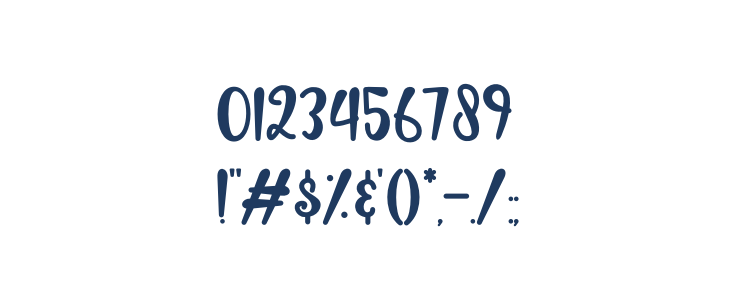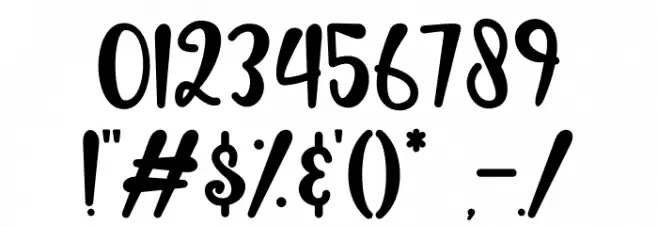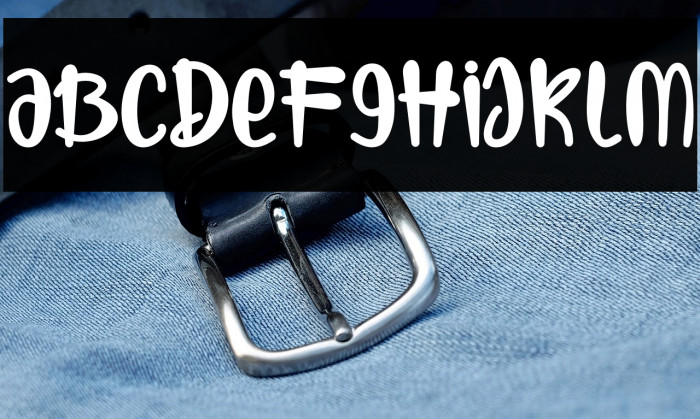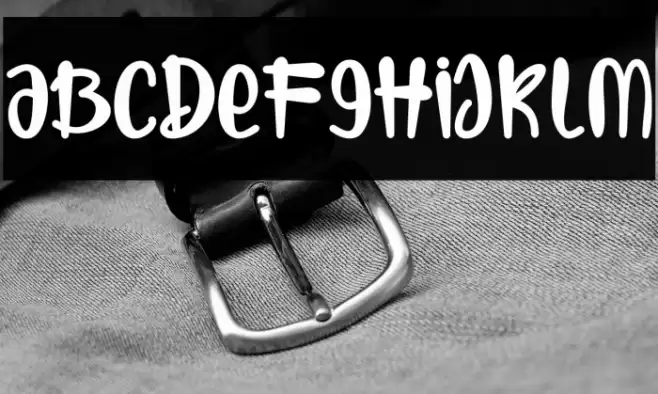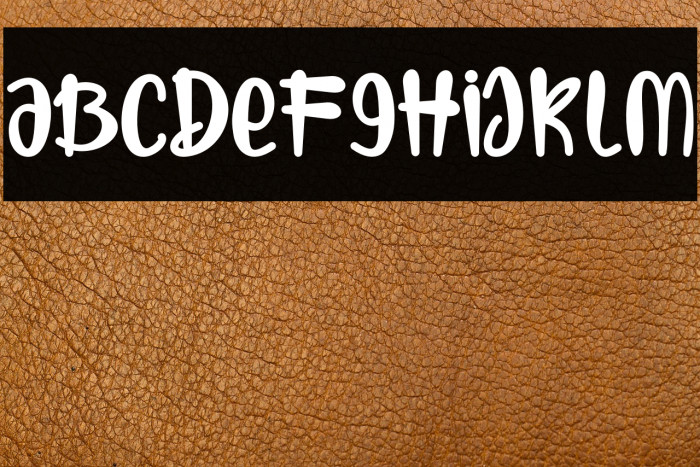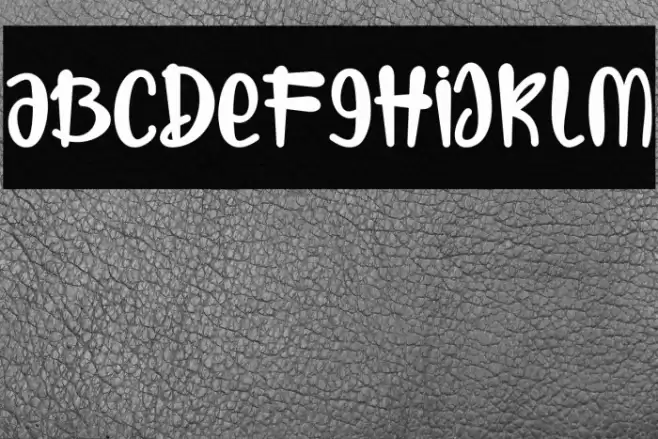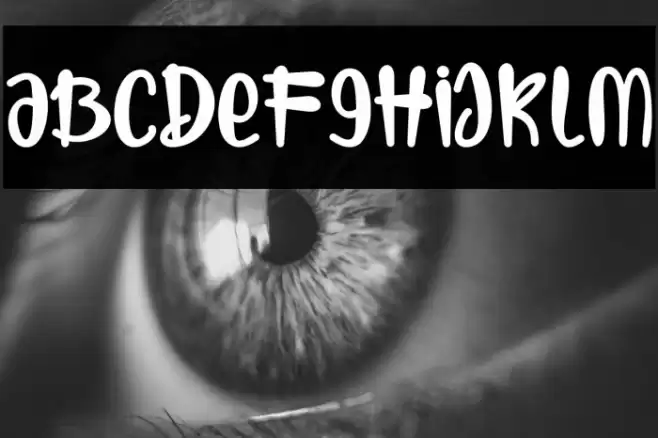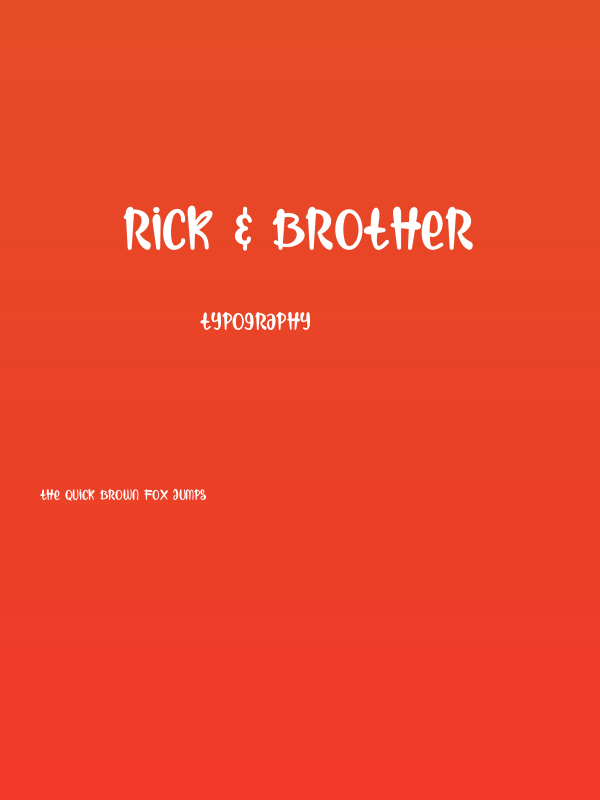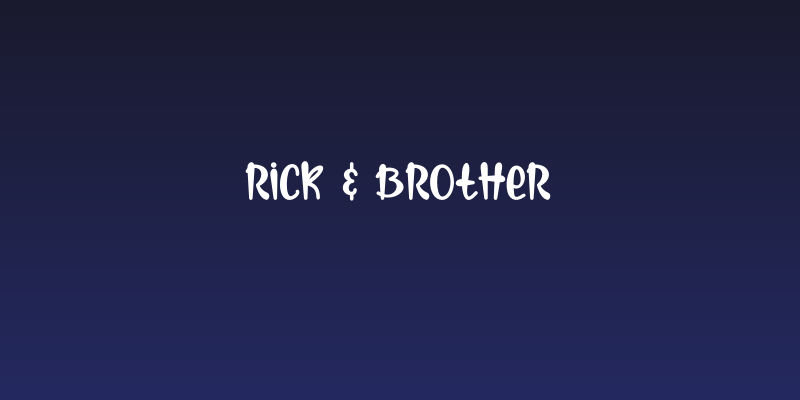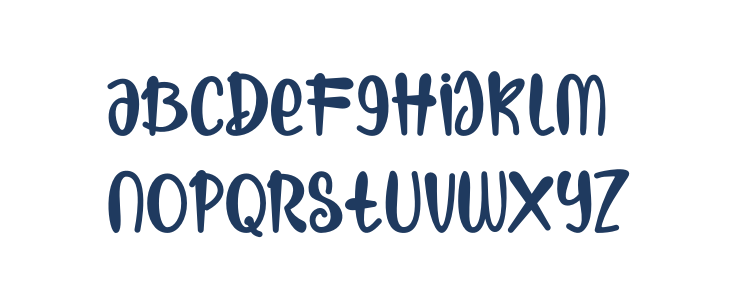
Rick & Brother Font
Rick & Brother Description
This playful and bold font features a handwritten style with a whimsical flair. The characters are rounded and slightly irregular, giving them a friendly and approachable appearance. The uppercase and lowercase letters maintain a consistent style, with a slight slant that adds to the casual feel. The numbers and special characters are designed to match the overall aesthetic, ensuring a cohesive look across all text. The font's thick strokes and rounded edges make it highly legible, even at smaller sizes. Its unique style is perfect for projects that require a touch of personality and creativity.